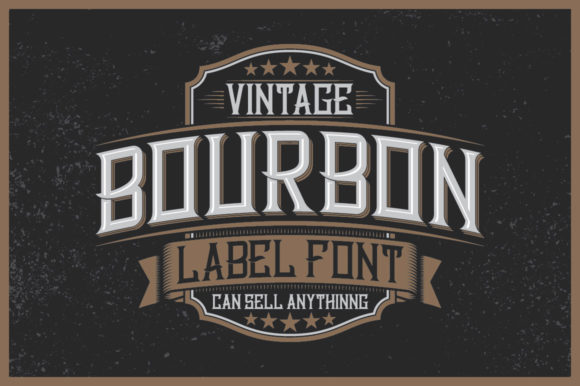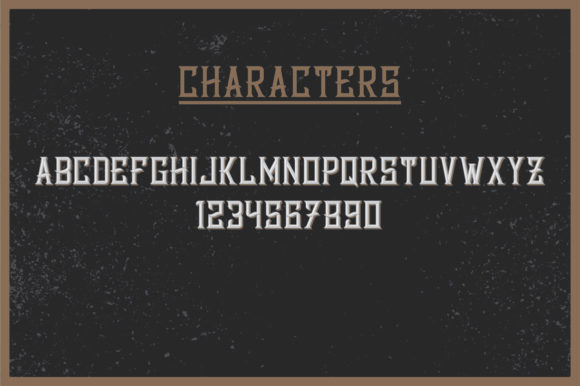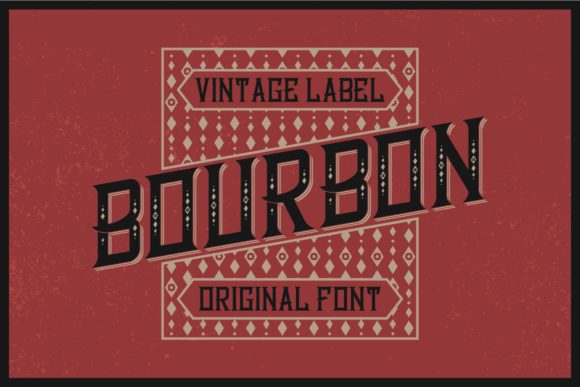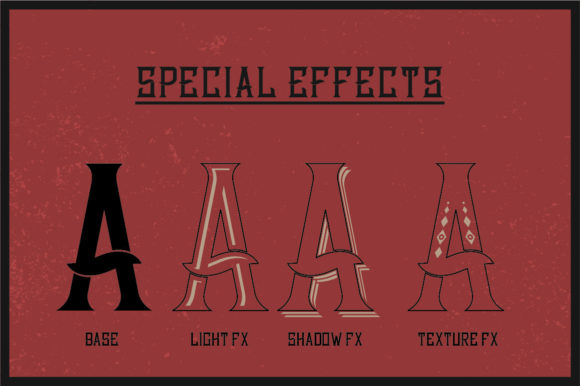
Bourbon Font: Bold Vintage Typography for Creative Logo Design
About the Bourbon Font
The Bourbon Font offers a perfect balance of form and function for your design needs. Bourbon is an assertive, retro styled and fierce display font. It will look stunning on any poster flyer or print.
Bourbon’s strong, retro styling makes it ideal for headlines, posters, and branding projects requiring a bold, assertive statement. Its vintage aesthetic lends itself well to packaging for products emphasizing heritage or a classic feel. However, its condensed letterforms and high x-height make it less suitable for body text or UI elements where readability is paramount.
Consider pairing Bourbon with a clean sans-serif like Futura or a slightly more playful, rounded sans-serif such as Poppins for a balanced design. For a more vintage feel, a classic serif like Garamond could also work effectively, softening the strong impact of Bourbon while maintaining a cohesive style.
The font’s overall personality is confident and assertive, projecting a sense of strength and retro cool. It’s perfect for brands targeting a mature audience interested in classic styles with a modern twist.
Bourbon Font Usage Examples
Bourbon Font Example